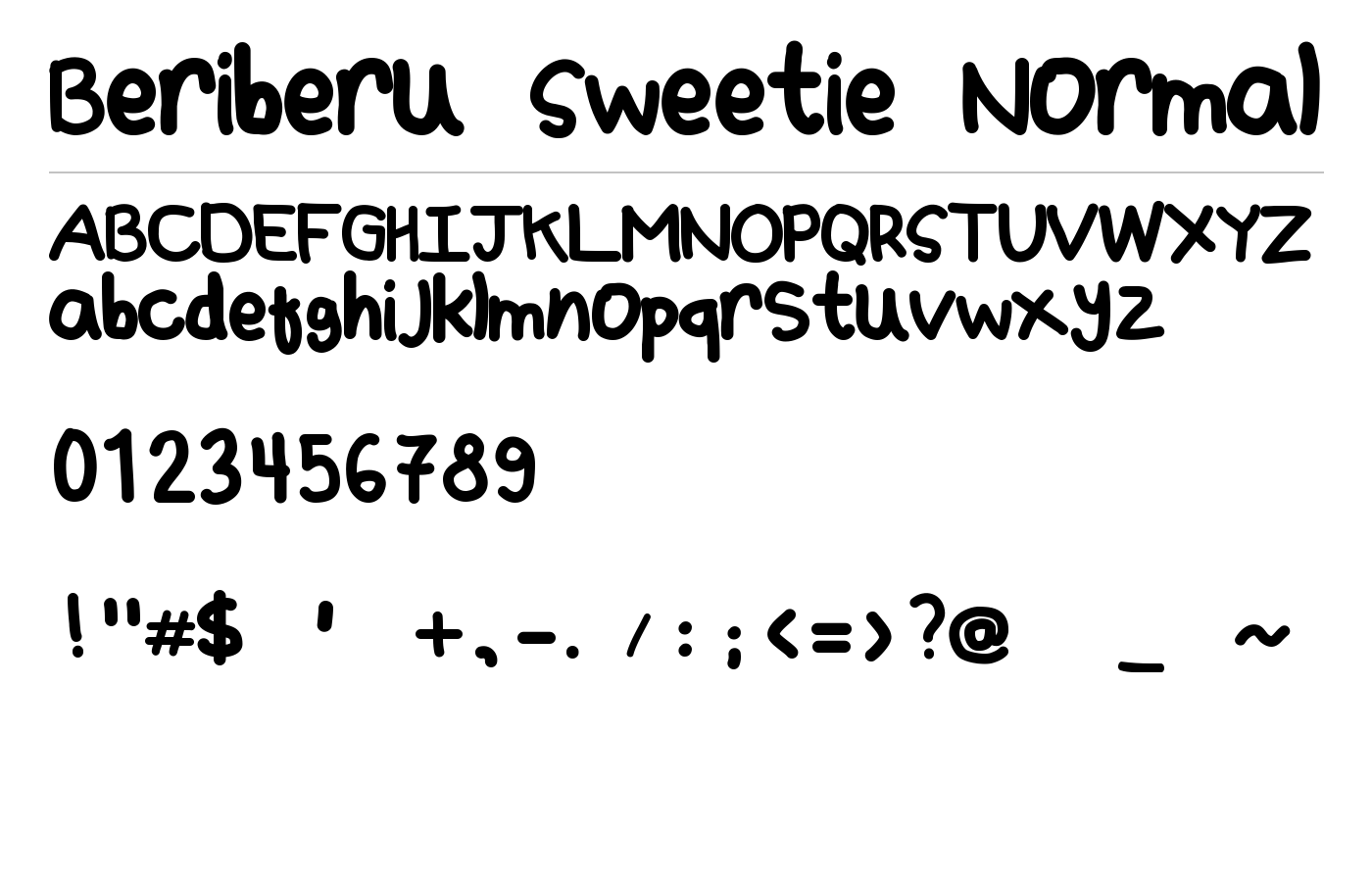
Beriberu Sweetie is a playful, hand-drawn sans serif font with rounded, soft edges and a casual, friendly vibe. Its irregular stroke widths and whimsical letterforms make it perfect for informal designs like children’s books, fun branding, or creative posters where a cheerful and approachable personality is desired.
Beriberu Sweetie Font
About Beriberu Sweetie Font
| Font family | Beriberu Sweetie Font |
| Designer | Cymbell Pangilinan |